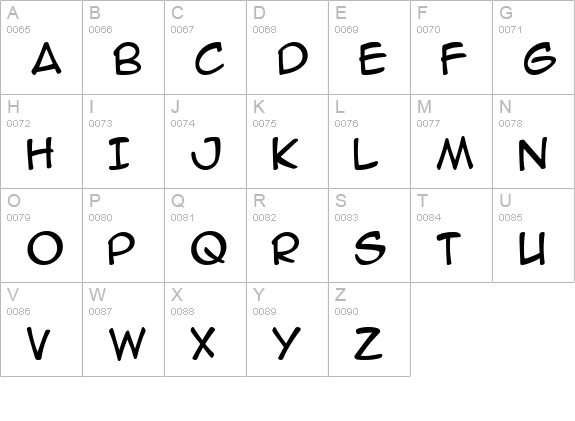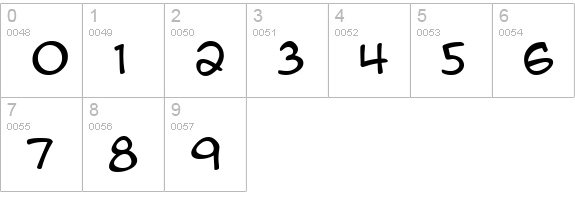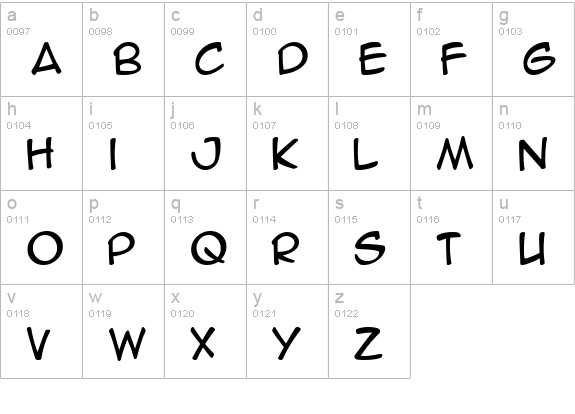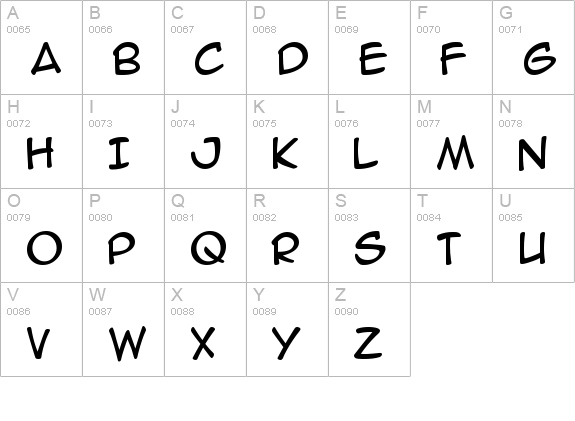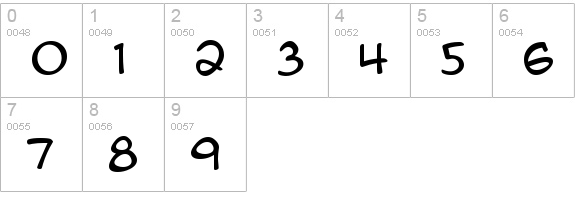
Anime Ace font is a dynamic and eye-catching typeface that perfectly captures the essence of the anime and manga style. With its bold and playful design, this font is sure to make a statement in any project. Whether you are creating a poster, logo, or comic book, Anime Ace font adds a touch of flair and excitement to your designs. The best part? Anime Ace font is completely free to download at FontsMarket.com. You can easily access this versatile font and enhance your creative projects without any cost. Don't miss out on the opportunity to add a touch of anime-inspired charm to your designs with Anime Ace font, available for free download now!